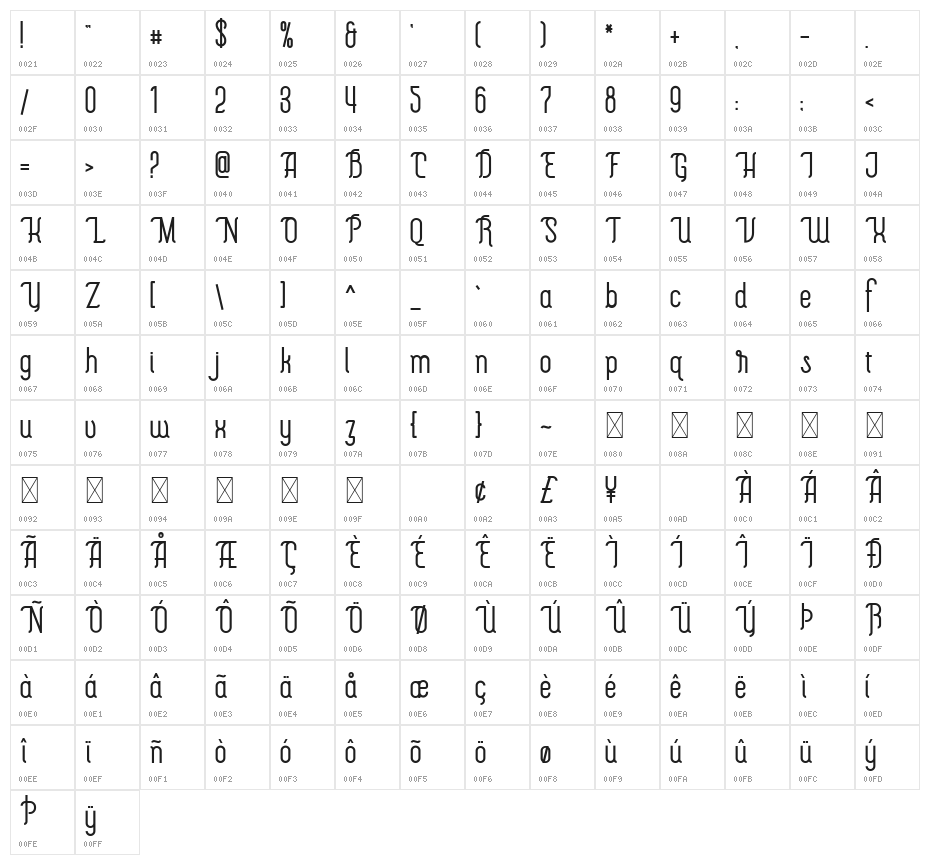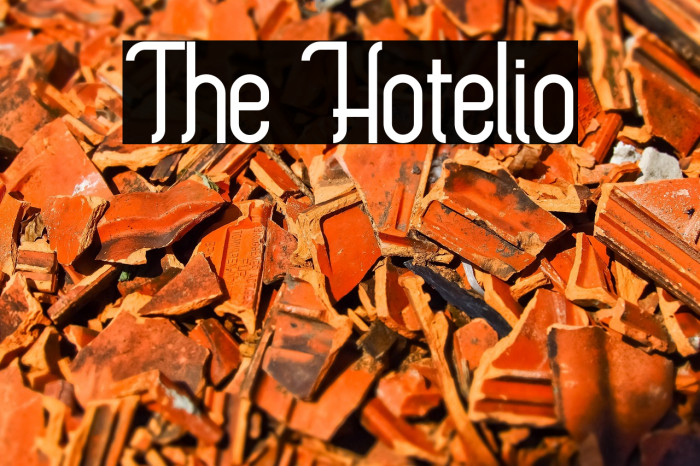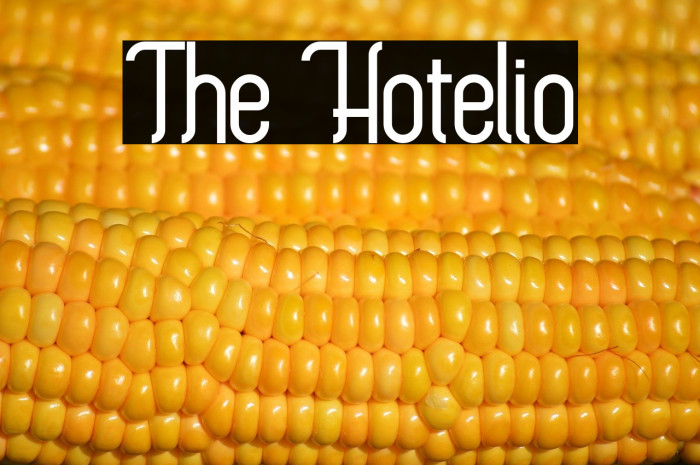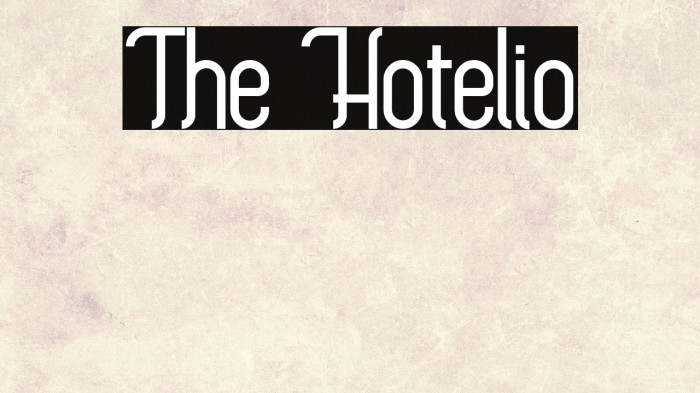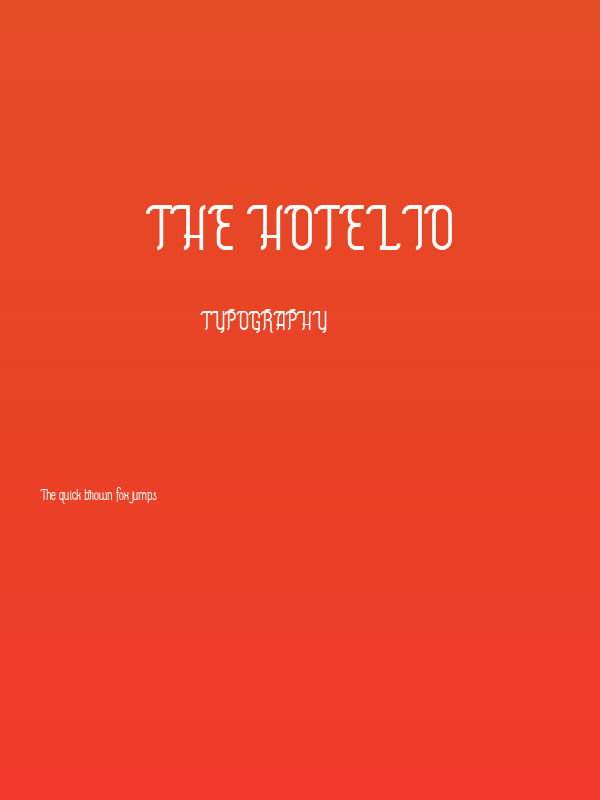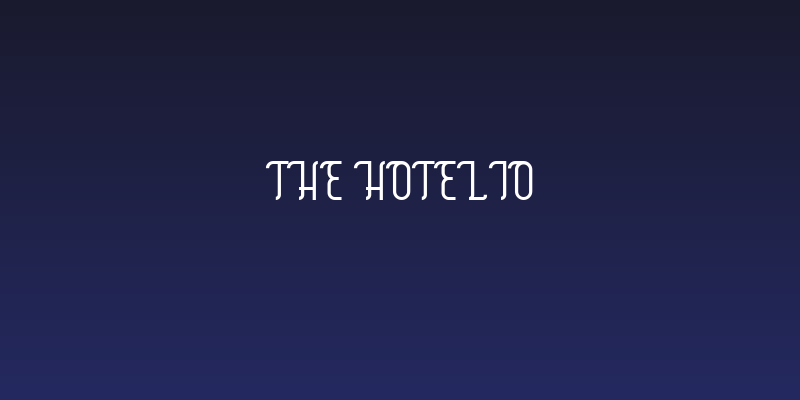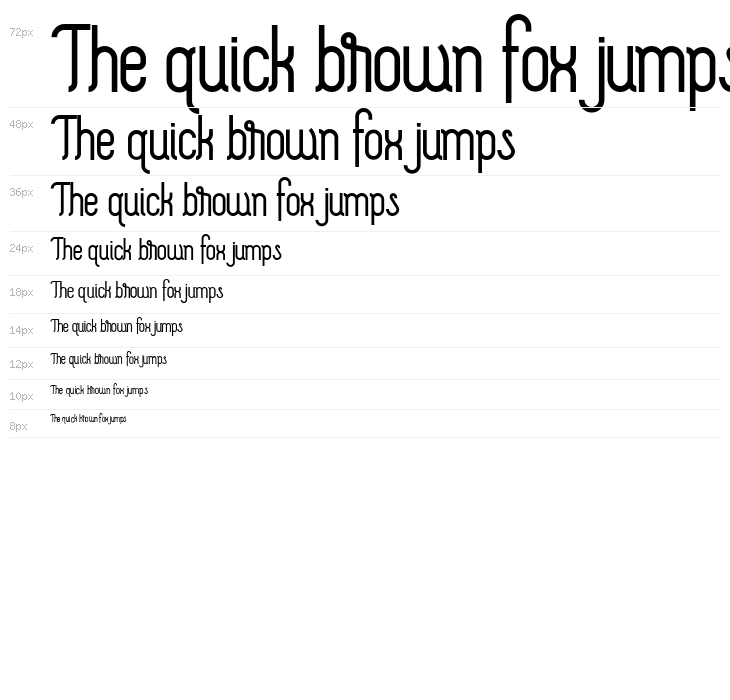
The Hotelio Font
The Hotelio Description
This font features a unique blend of modern and vintage elements, characterized by its tall, narrow letterforms and distinct geometric shapes. The uppercase letters exhibit a strong vertical emphasis with subtle curves, while the lowercase letters maintain a consistent height, enhancing readability. Numbers are clean and straightforward, complementing the overall style. Special characters are designed with a similar aesthetic, ensuring uniformity across all glyphs. The font's design is both elegant and functional, making it suitable for a variety of applications.
Overall StyleModern, Vintage
Use CaseHeadlines, Logos, Branding
Proposed ProjectsIdeal for branding, editorial design, and signage where a modern yet classic feel is desired.